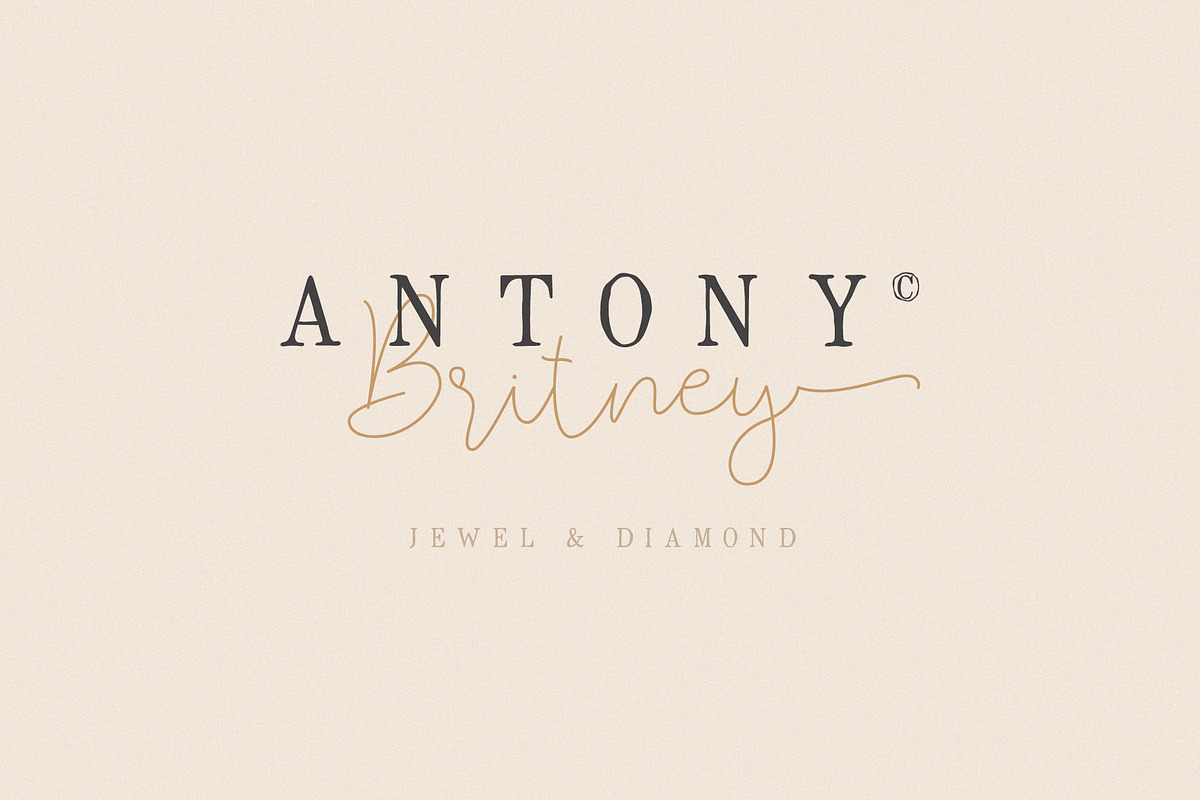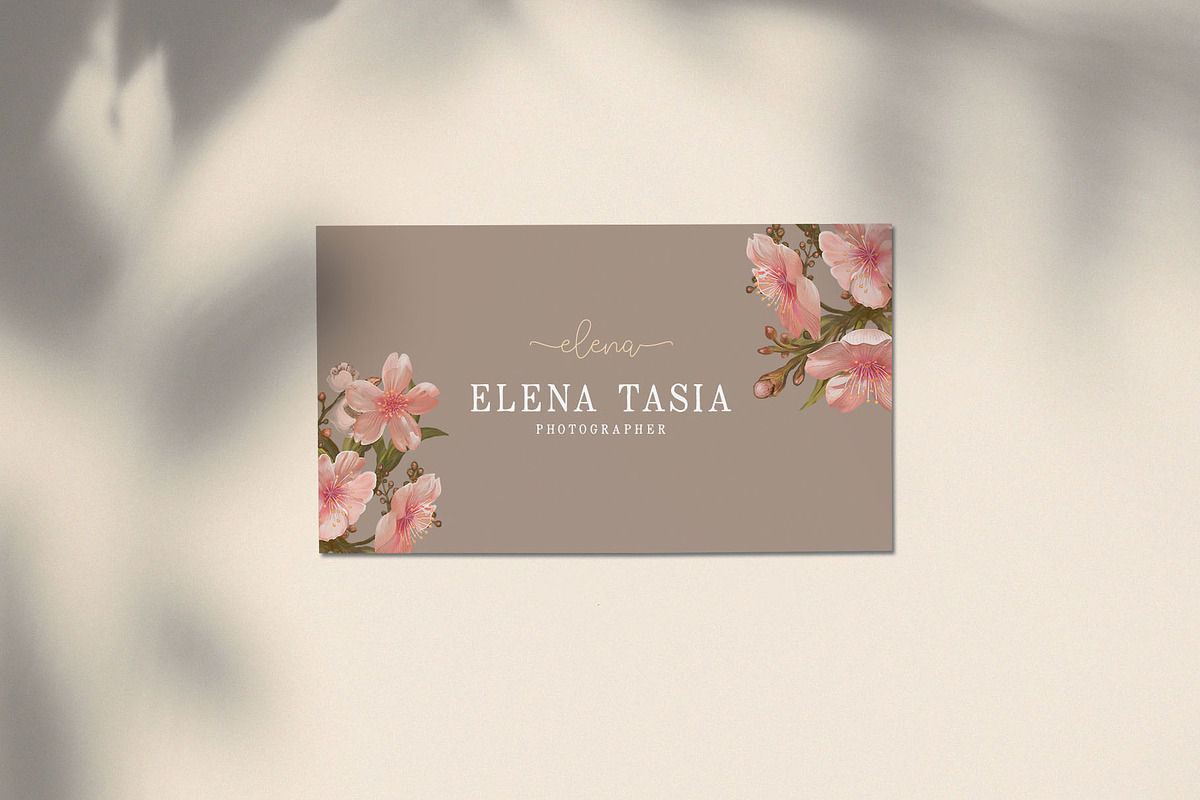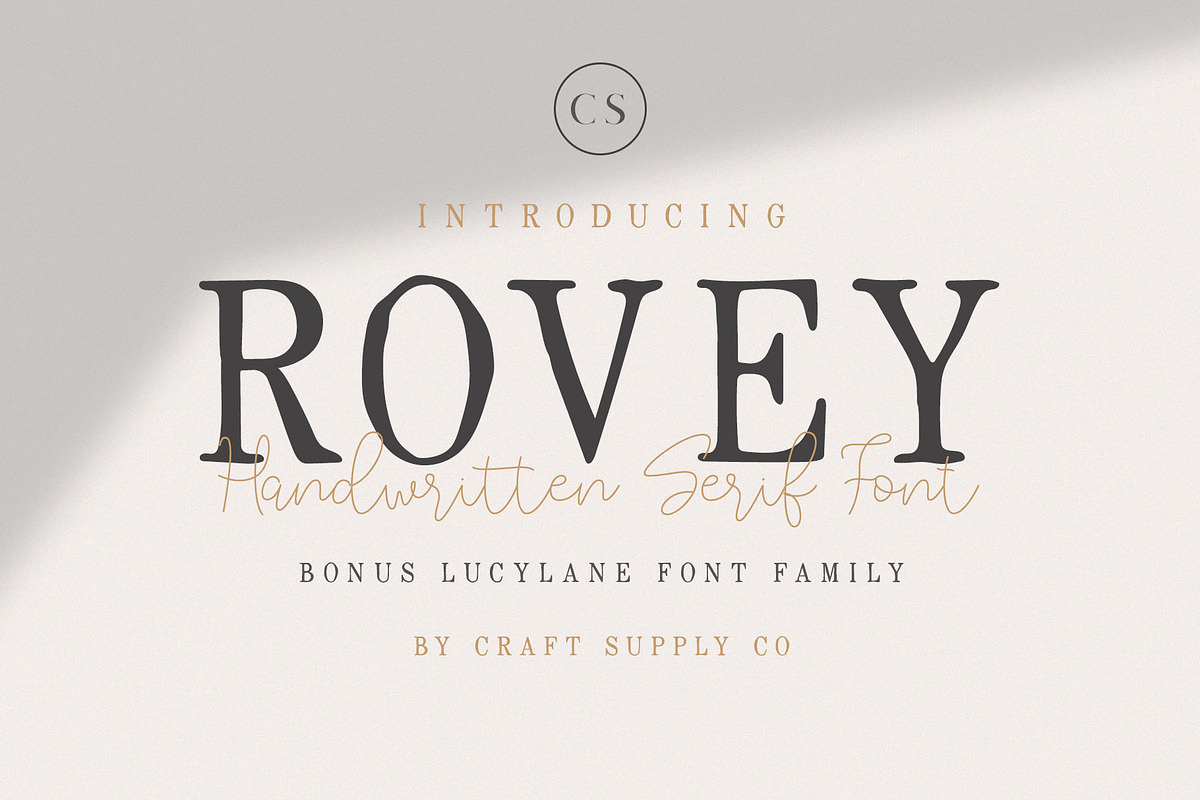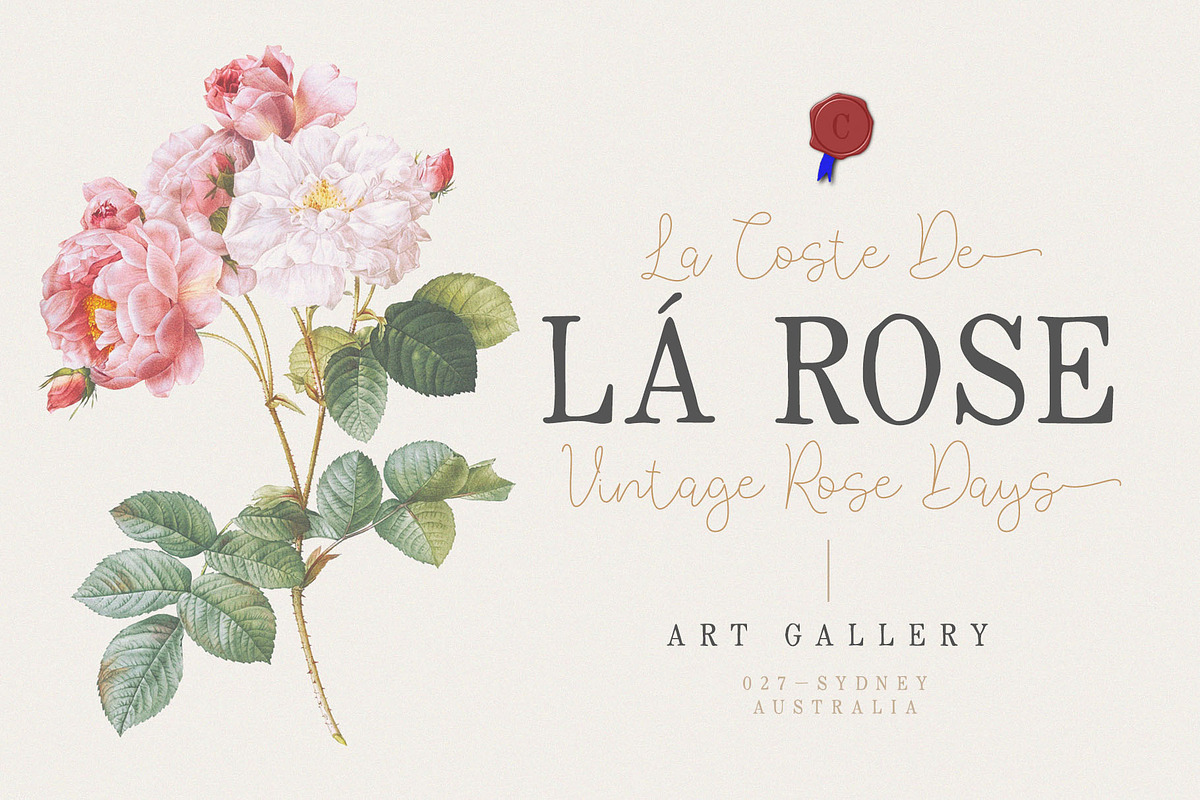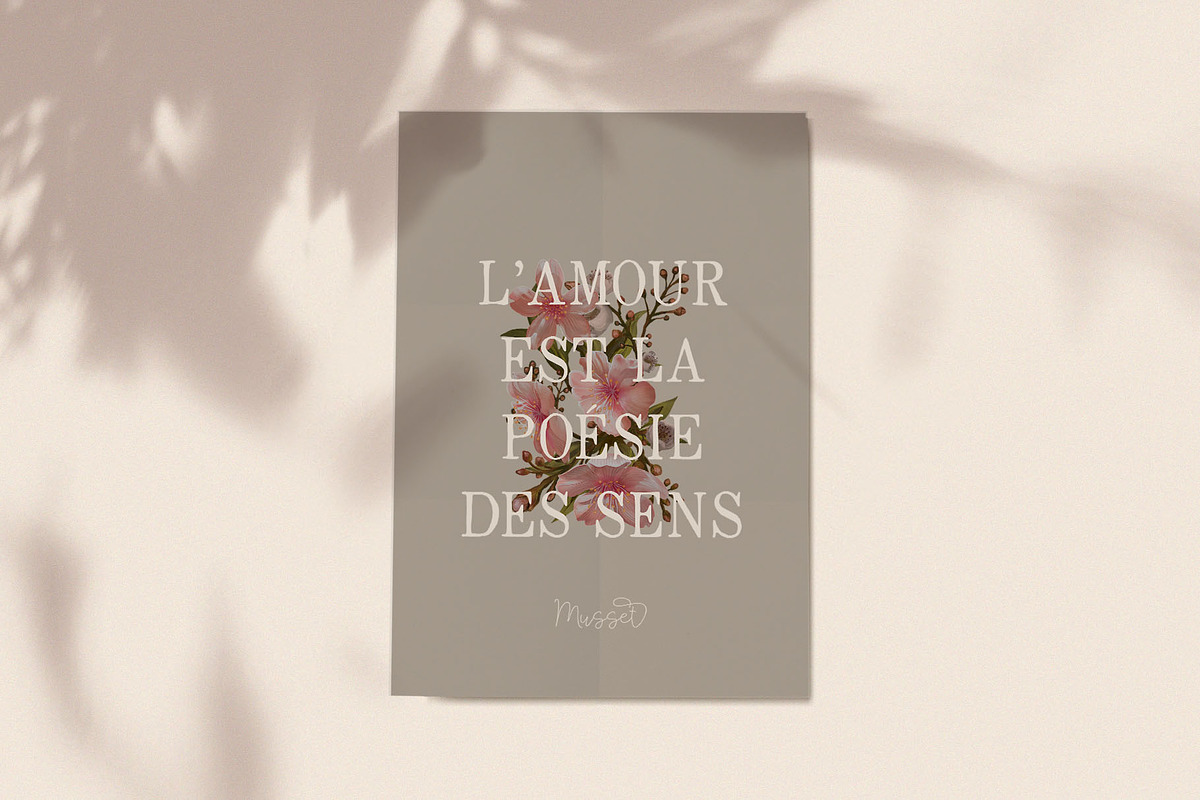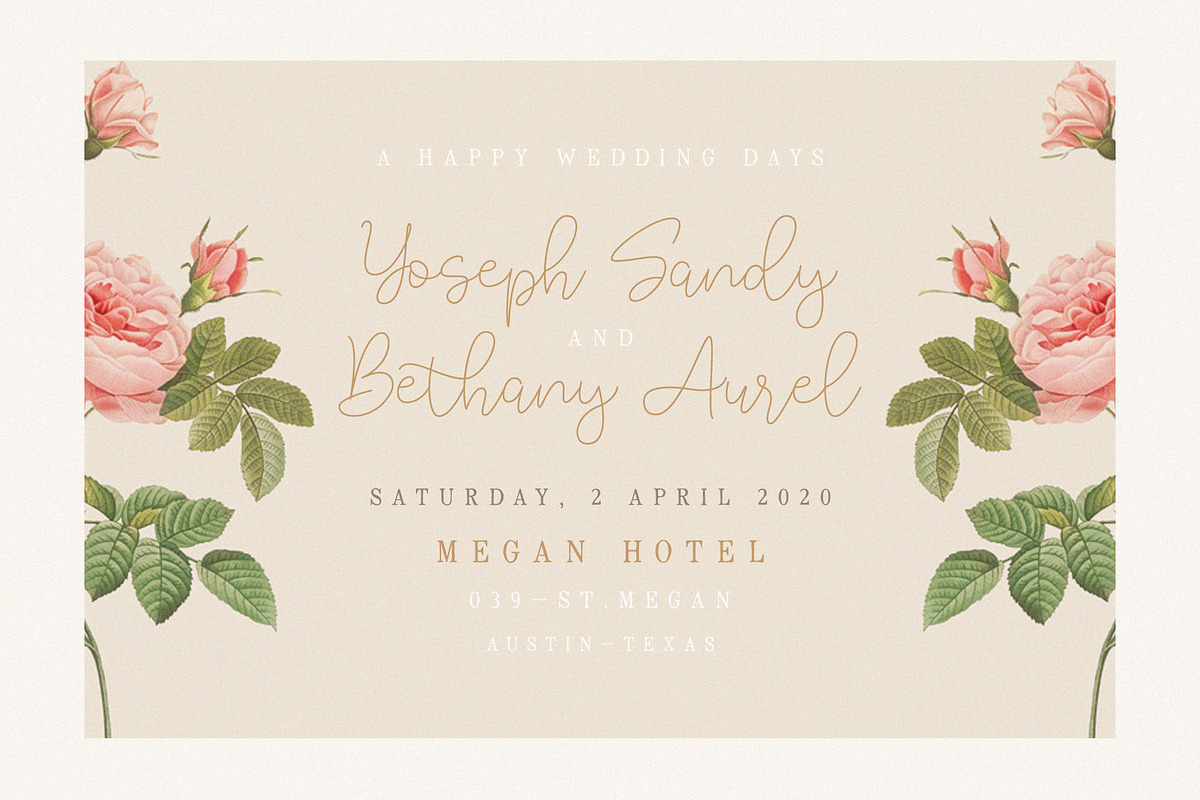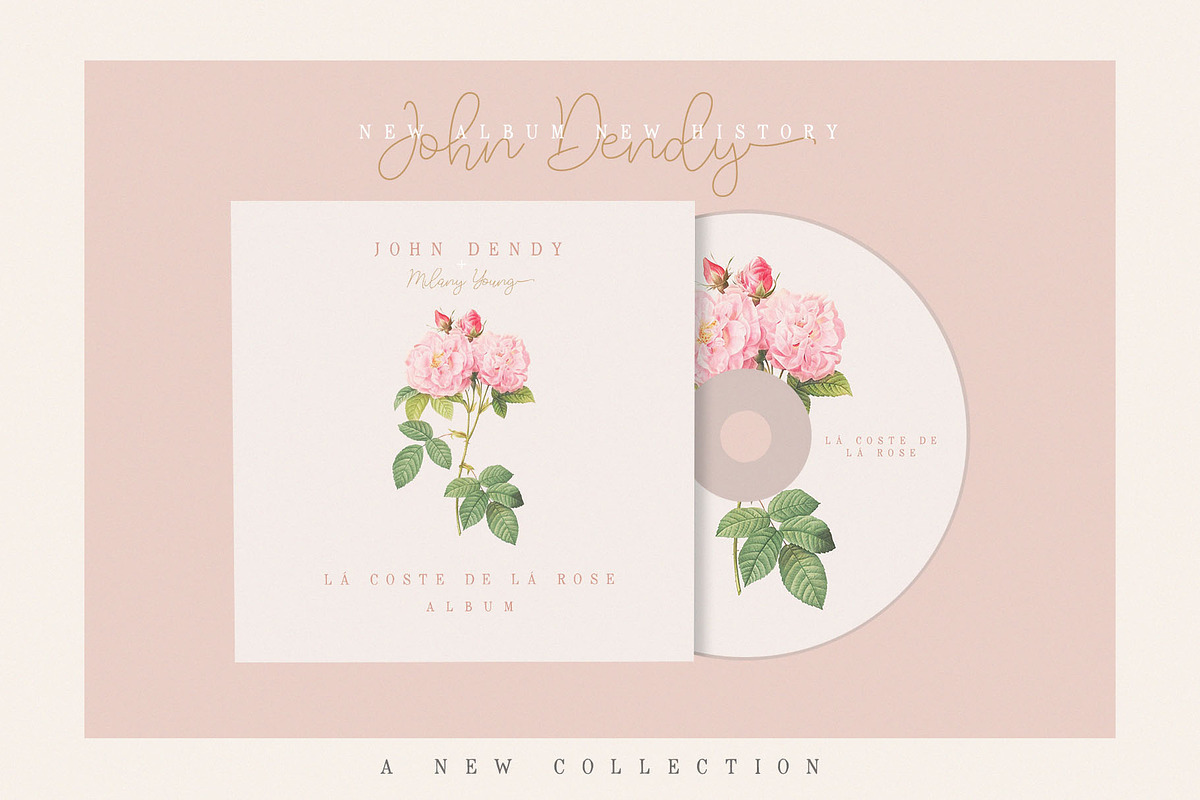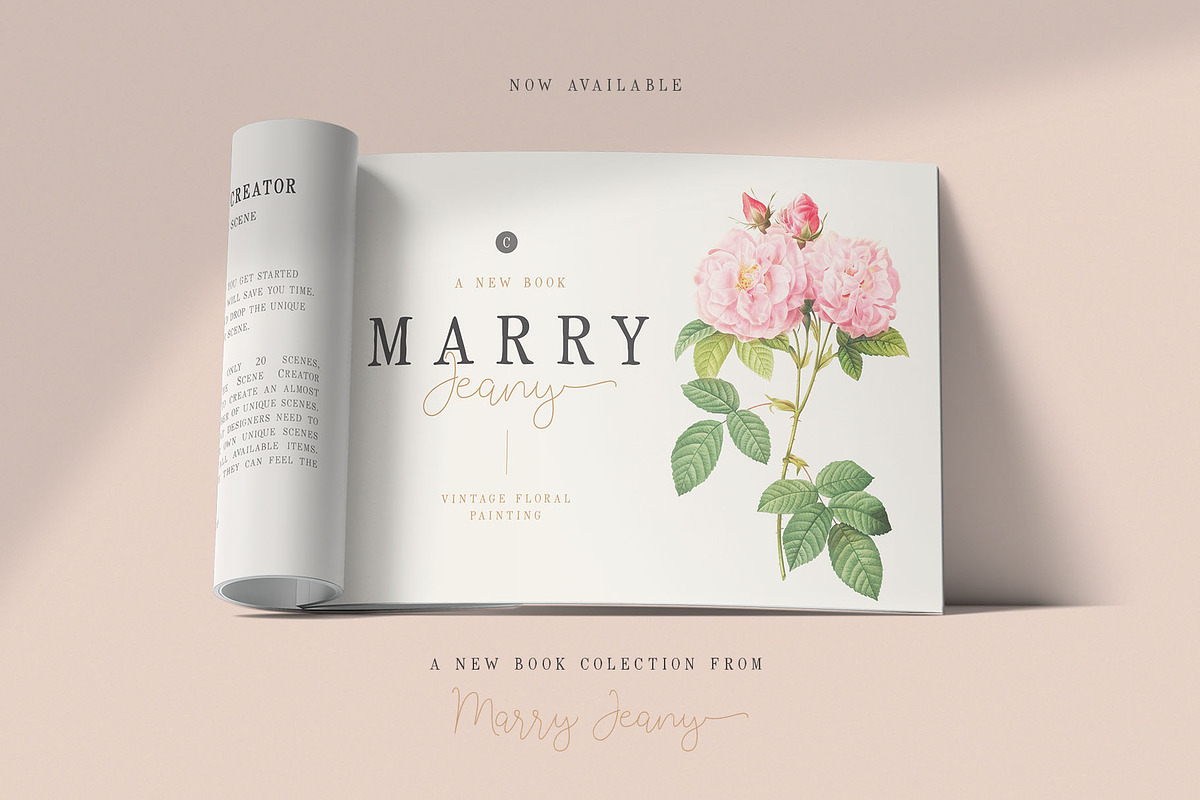
Rovey - Handwritten Serif Font+Bonus
Rovey - Handwritten Serif Font + Bonus. It can be used to create almost all types of design projects like print materials. Just use your imagination and some graphic design set in Extras, your project will become more alive and look great than ever with Rovey - Handwritten Serif Font + Bonus.
You want to make a greeting card or a package design, or even a brand identity, craft design, any DIY project, book title, wedding font, pop vintage design, retro design or any purpose to make your art / design project look pretty and trendy? Feel free to play with this fonts!
5. Accents (Multilingual characters)(AÀÁÂÃÄÅCÇDÐEÈÉÊËIÌÍÎÏNÑOØÒÓÔÕÖUÙÜÚÛWYÝŸỲŸÆŒßÞ)
- Features :
- All Caps Fonts
- Special Ligatures (tt oo ll tl t t tk tb tf th)
- Stylistic Alternates (up to 10 Style for each alphabet)
- Features :
- 1. All Caps Fonts
- 2. Special Ligatures (tt oo ll tl t t tk tb tf th)
- 3. Stylistic Alternates (up to 10 Style for each alphabet)
- 4. Numerals & Punctuations (OpenType Standard)
- 1. All Caps Fonts
- 2. Special Ligatures (tt oo ll tl t t tk tb tf th)
- 3. Stylistic Alternates (up to 10 Style for each alphabet)
- 4. Numerals & Punctuations (OpenType Standard)
- 5. Accents (Multilingual characters)(AÀÁÂÃÄÅCÇDÐEÈÉÊËIÌÍÎÏNÑOØÒÓÔÕÖUÙÜÚÛWYÝŸỲŸÆŒßÞ)
Why Rovey - Handwritten Serif Font+Bonus is worth a look